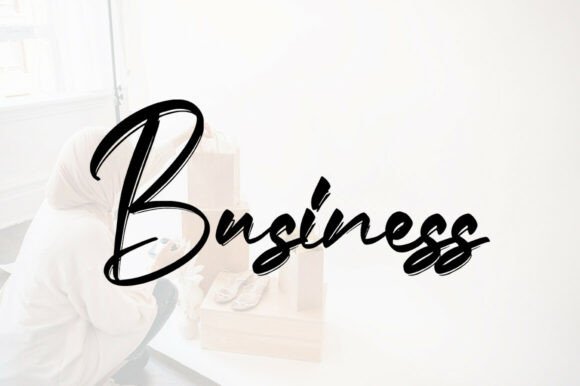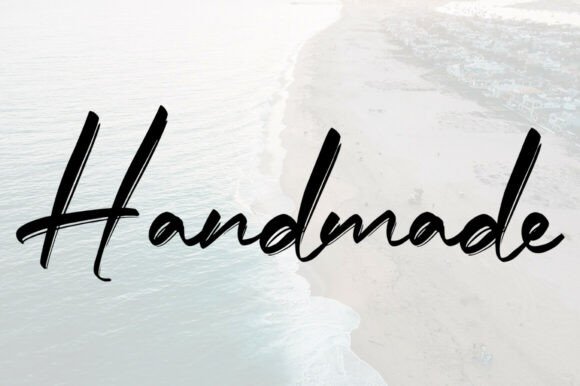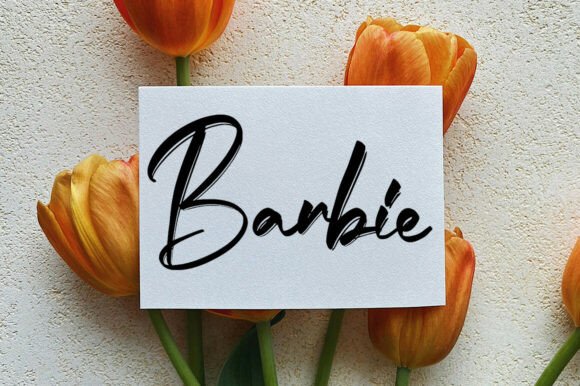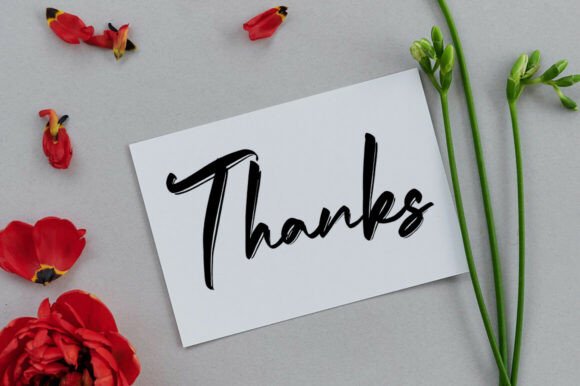
Introduction to Overlay Font
As a designer, you’ve likely experienced that moment when you’re working on a creative project and the perfect font just eludes you. The words on the page are jumbled, the design is struggling to come together, and you feel like you’re stuck. But then, like a breath of fresh air, you stumble upon the perfect font – one that elevates your design to new heights and brings your vision to life. For many designers, that font is the Overlay Font.
With its delicate, elegant, and flowing handwritten style, the Overlay Font is a game-changer for designers seeking a high-quality font that adds a touch of sophistication to their work. Its beautiful and well-balanced characters make it a versatile design resource that matches a wide range of designs, from minimalist to elaborate.
Key Features of Overlay Font
- Unique, artistic design elements that can be used as overlays or standalone graphics in creative projects.
Honest Review: Overlay Font
I recently came across the Overlay Font, a design resource that has caught my attention with its unique features. As a designer, I’m always on the lookout for high-quality fonts that can elevate my creative projects.
The Overlay Font stands out with its transparent background, making it perfect for overlaying text on images or videos. This feature alone has the potential to revolutionize the way I approach design.
- ✨ High-quality design that’s visually appealing
- ✨ Versatile and can be used in a variety of creative projects
- ⚠️ Limited character set, which may not be suitable for extended text
Overall, I’m impressed with the Overlay Font’s design and versatility. While it may have some limitations, I believe it’s a valuable resource for designers looking to add a touch of creativity to their projects.
Tips for Getting the Most Out of Overlay Font
Use a high-quality image behind the text for a professional look. Experiment with different text colors and sizes to achieve the desired effect. Consider using a design resource like Overlay Font to add a unique touch to your creative project.
Overlay Font is commonly used in graphic design, branding, and creative projects. It’s a versatile design resource that can be used to add a touch of elegance and sophistication to any design. With its transparent background and high-quality design, Overlay Font is a must-have for any design project.
Q: Can I use Overlay Font on any background image?
Yes, Overlay Fonts are designed to work seamlessly with transparent backgrounds, making it easy to place the font over any image. However, the quality of the font may be affected by the background image’s resolution and color palette. It’s essential to experiment with different backgrounds to achieve the desired look for your creative project.